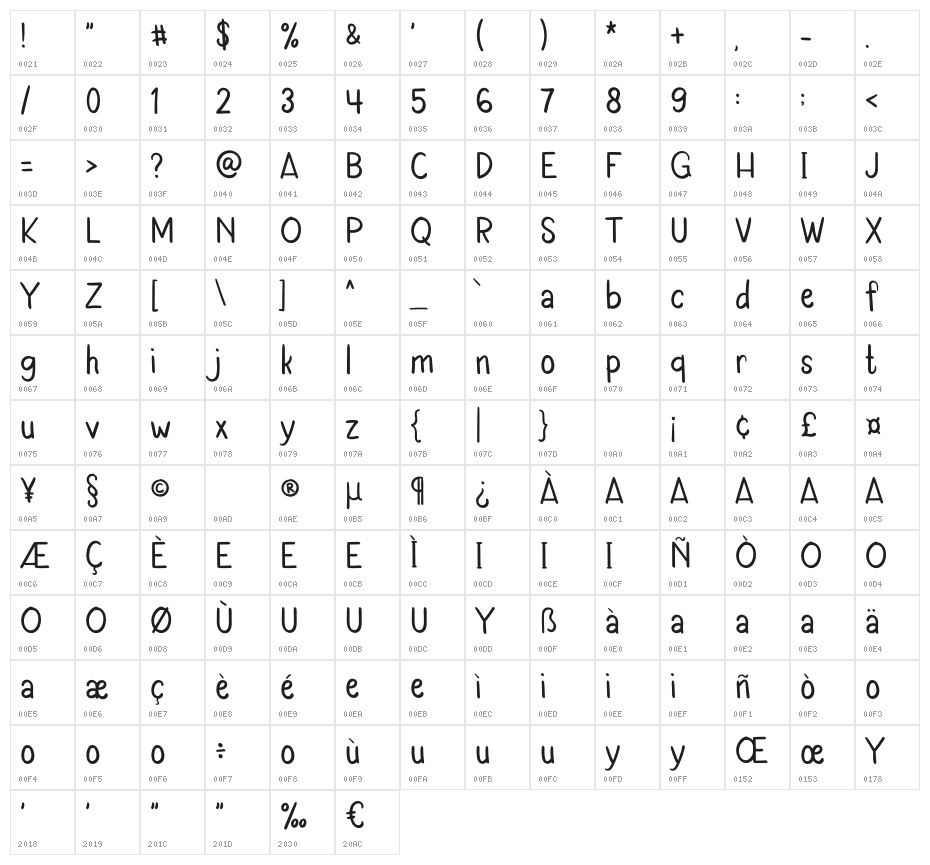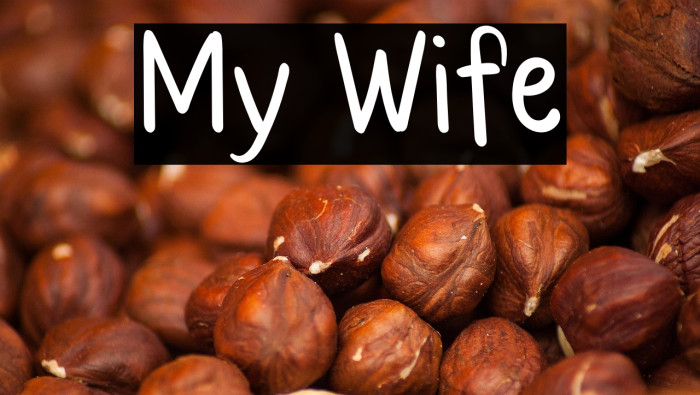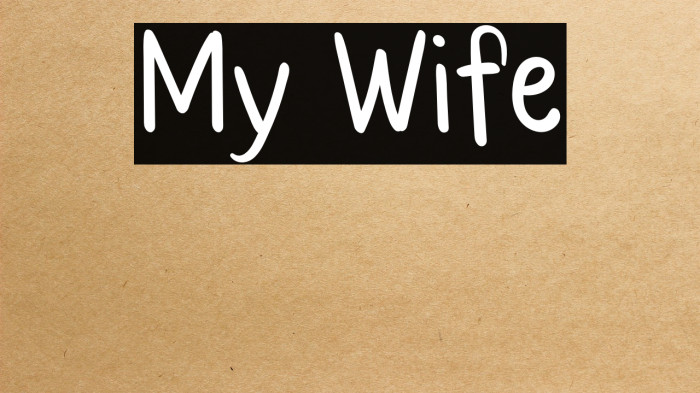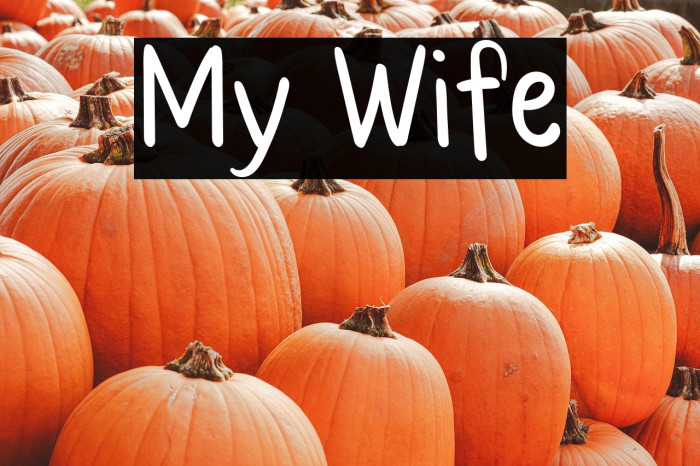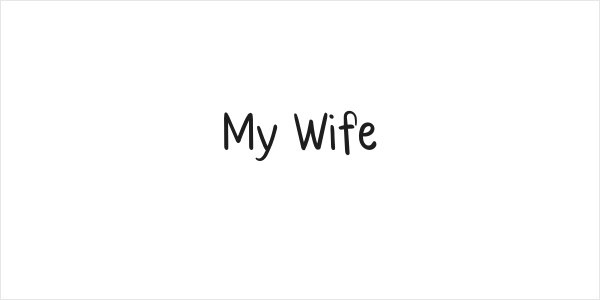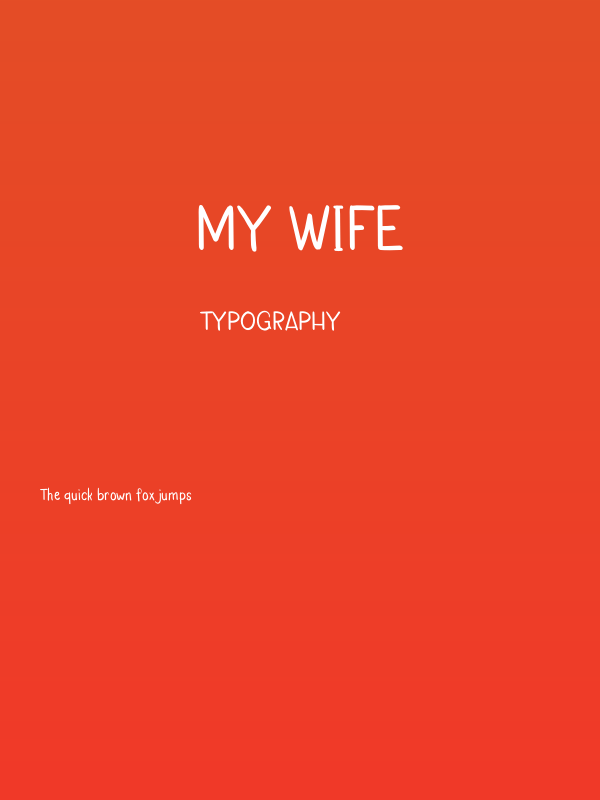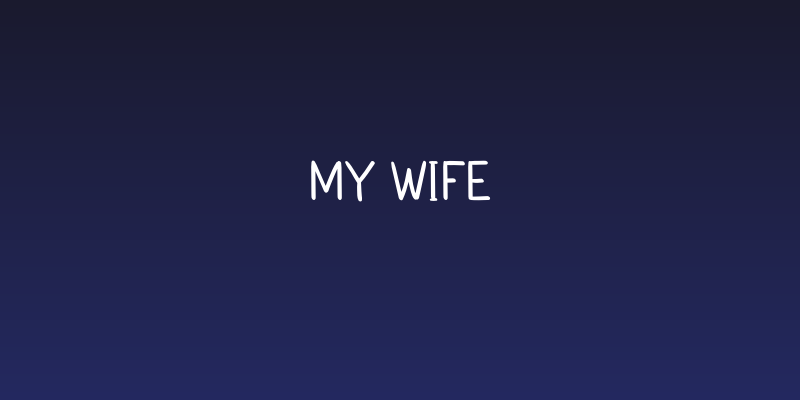
My Wife Font
My Wife Description
This font features a playful and casual handwritten style, characterized by its rounded and slightly irregular letterforms. The strokes are consistent in width, giving it a uniform appearance while maintaining a friendly and approachable vibe. The uppercase letters are bold and prominent, while the lowercase letters maintain a similar weight, ensuring readability. The numerals are clear and distinct, matching the overall style of the alphabet. Special characters are well-integrated, maintaining the font's cohesive look. This font is ideal for projects that require a personal touch, such as invitations, greeting cards, or children's books.
| Proposed Projects | Ideal for invitations, greeting cards, children's books, and casual branding. |